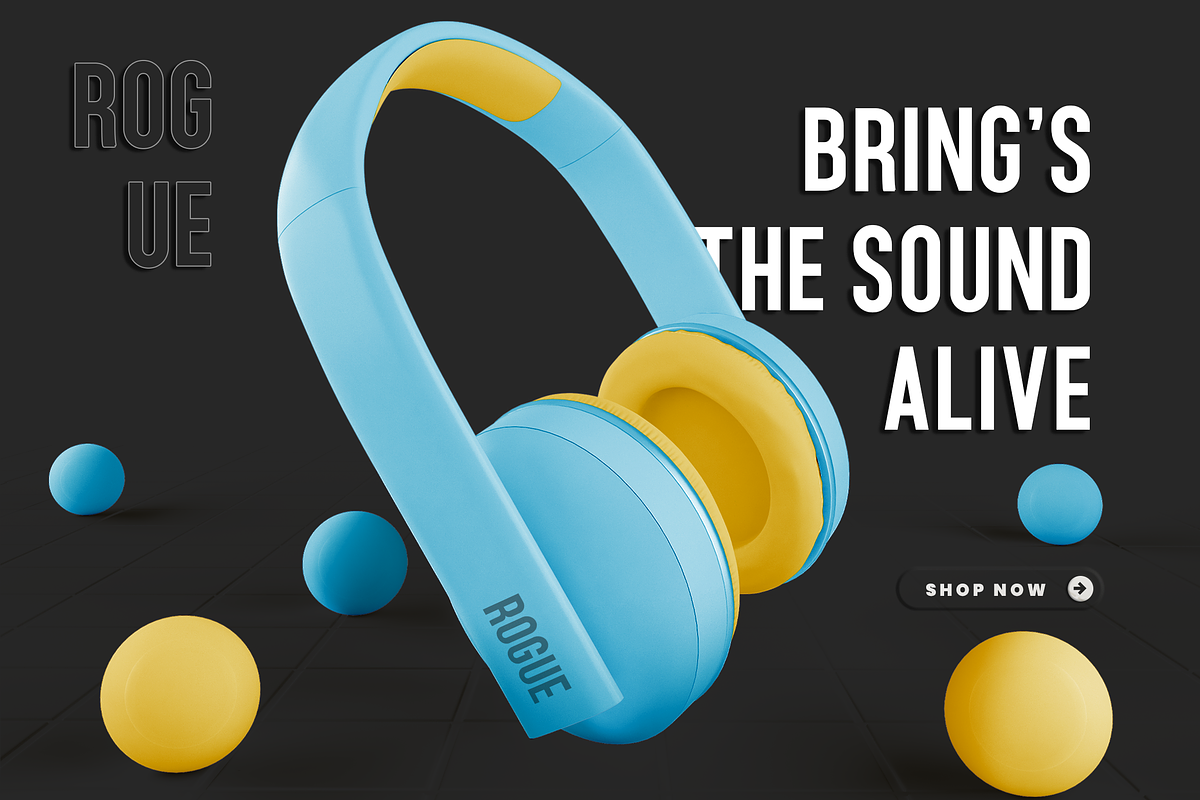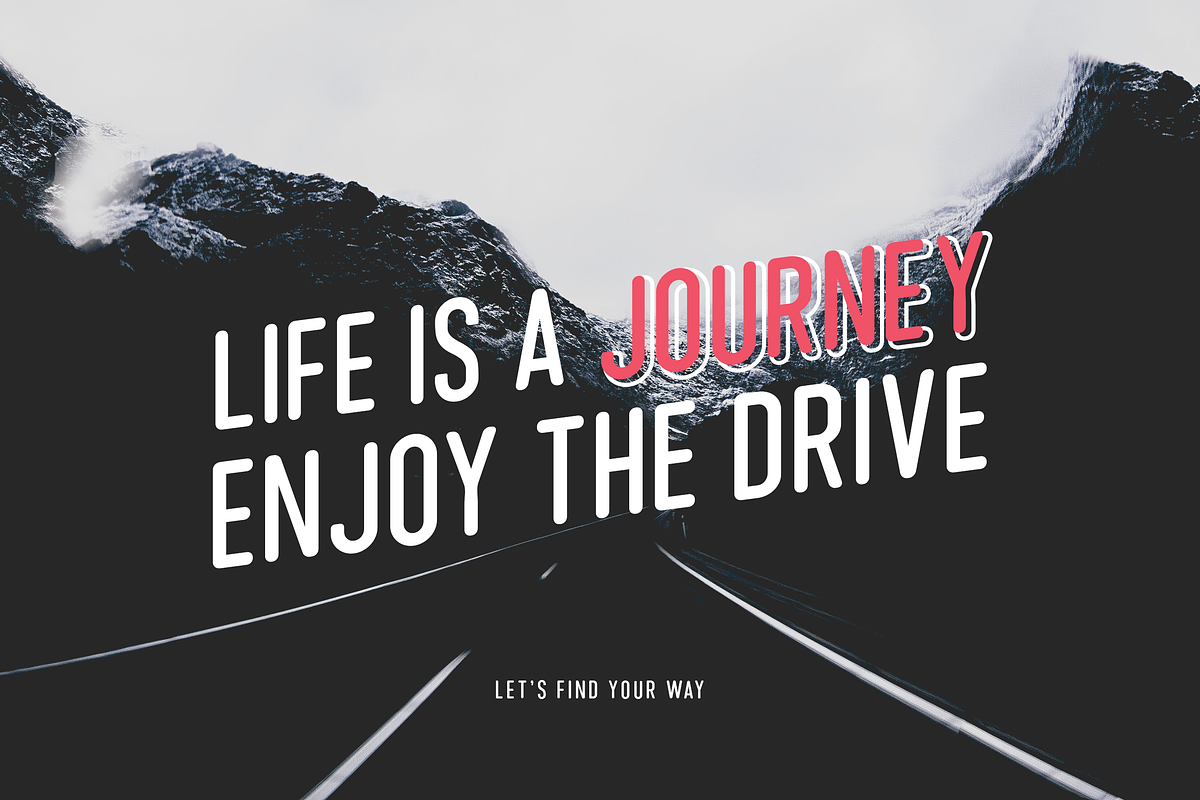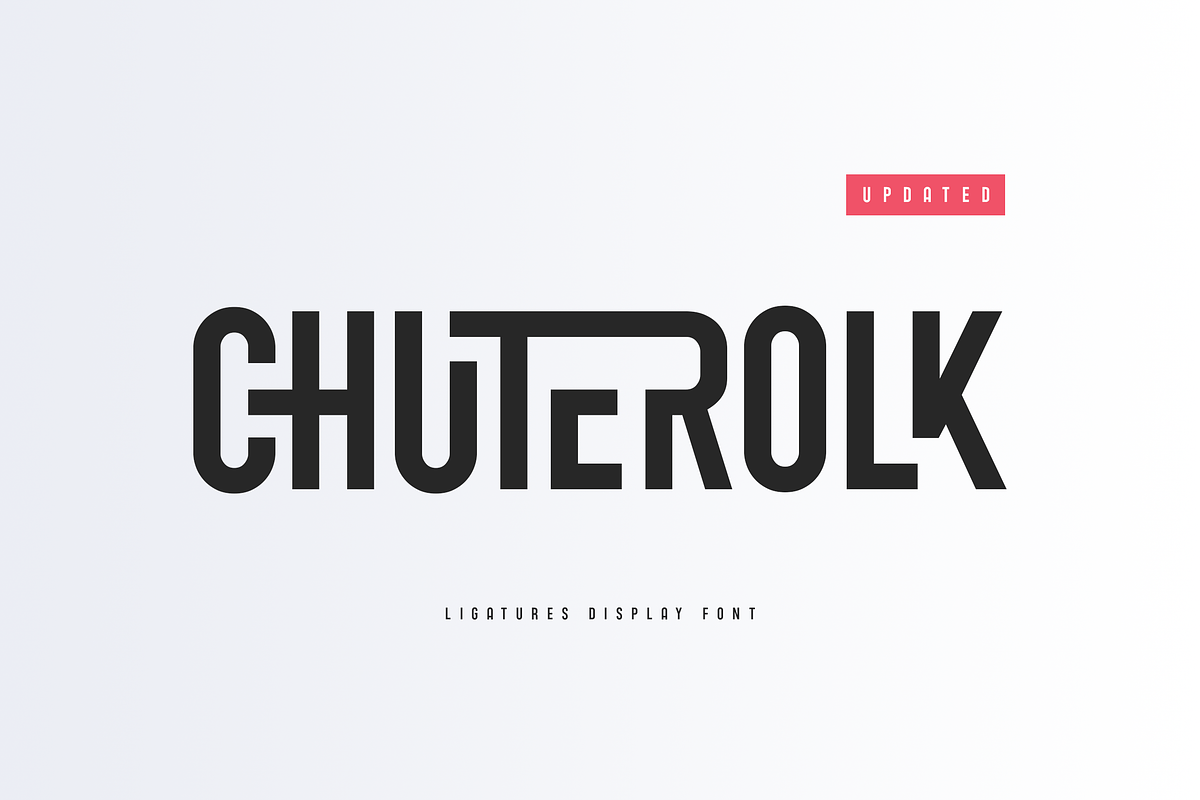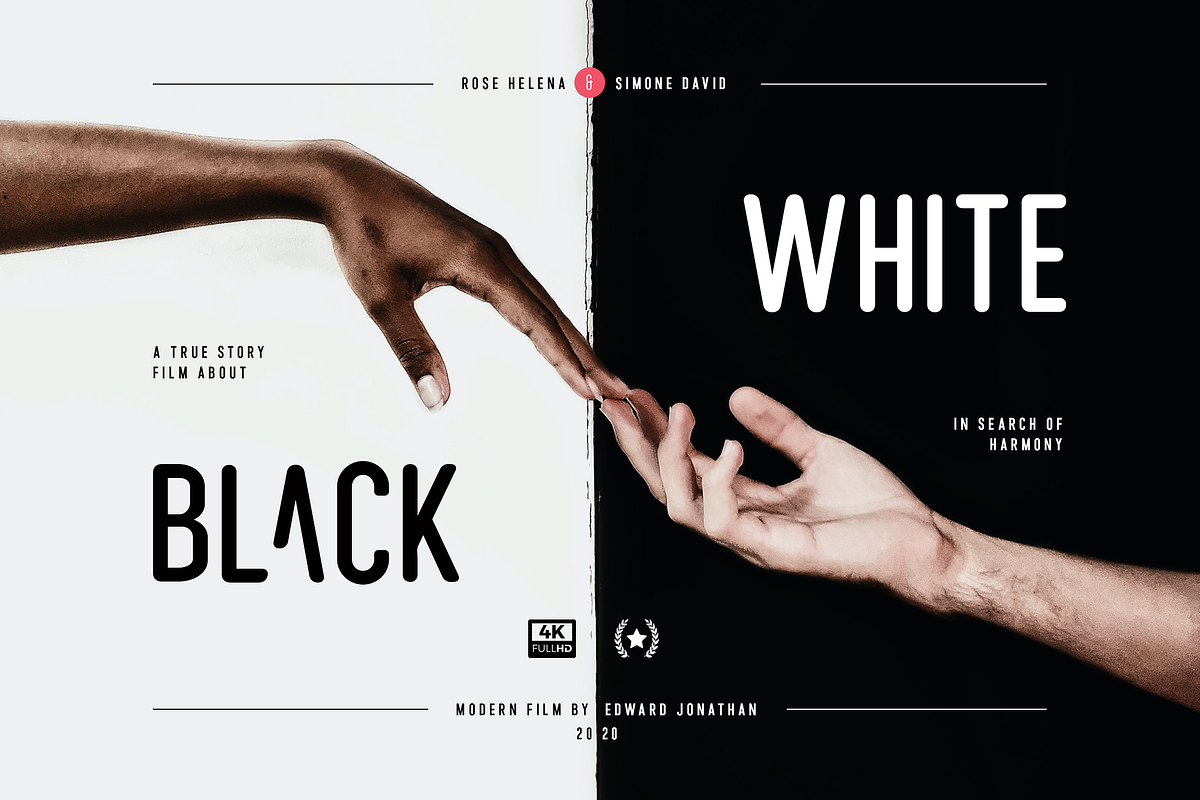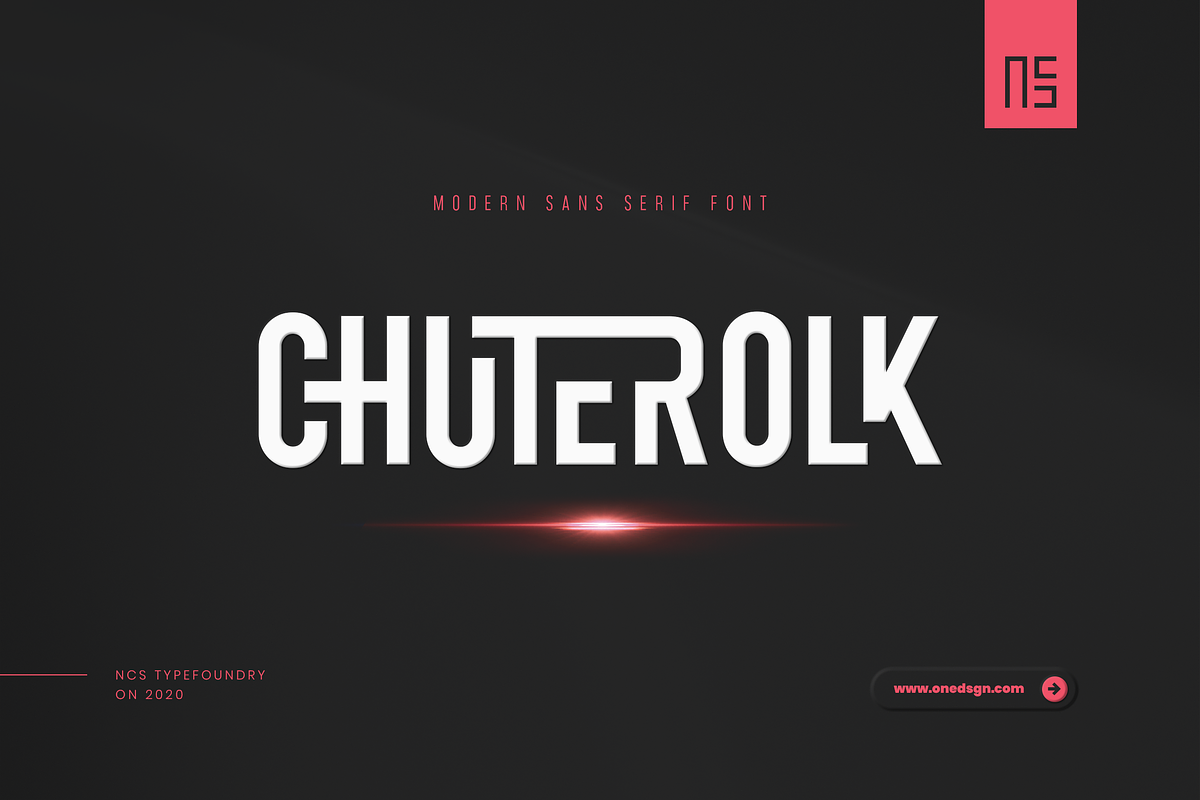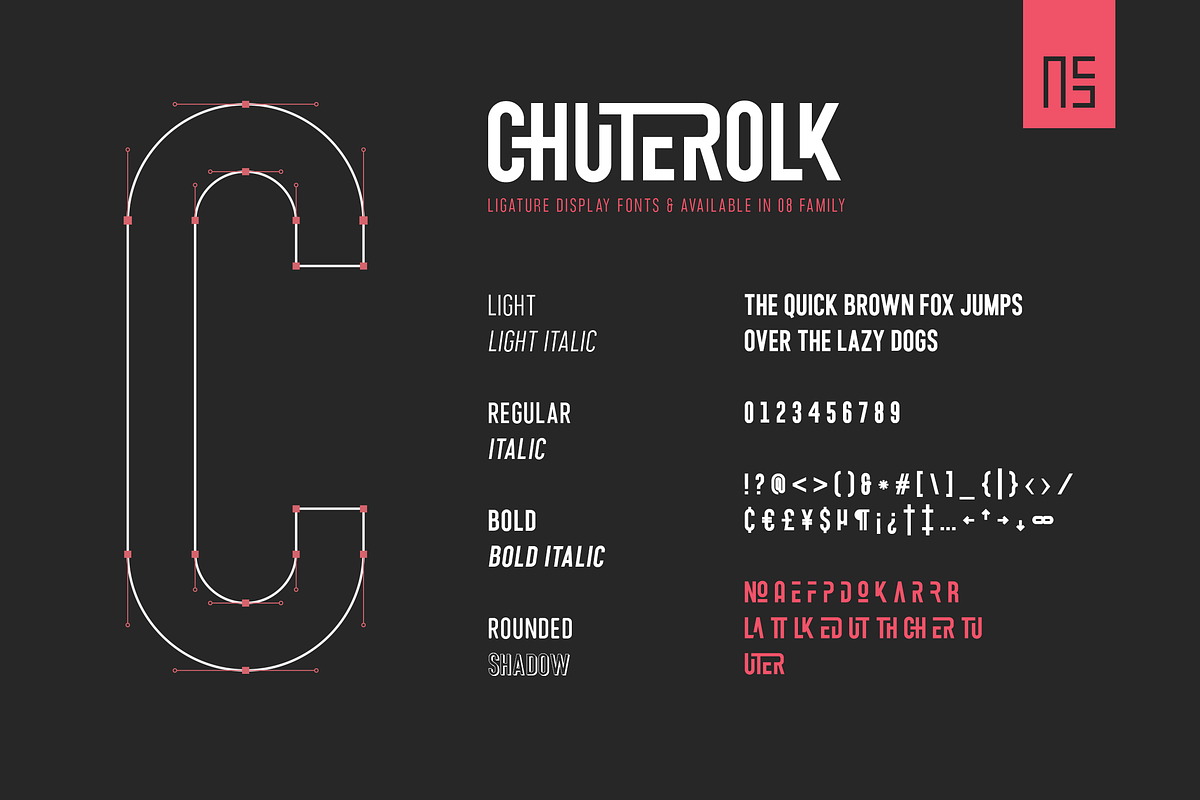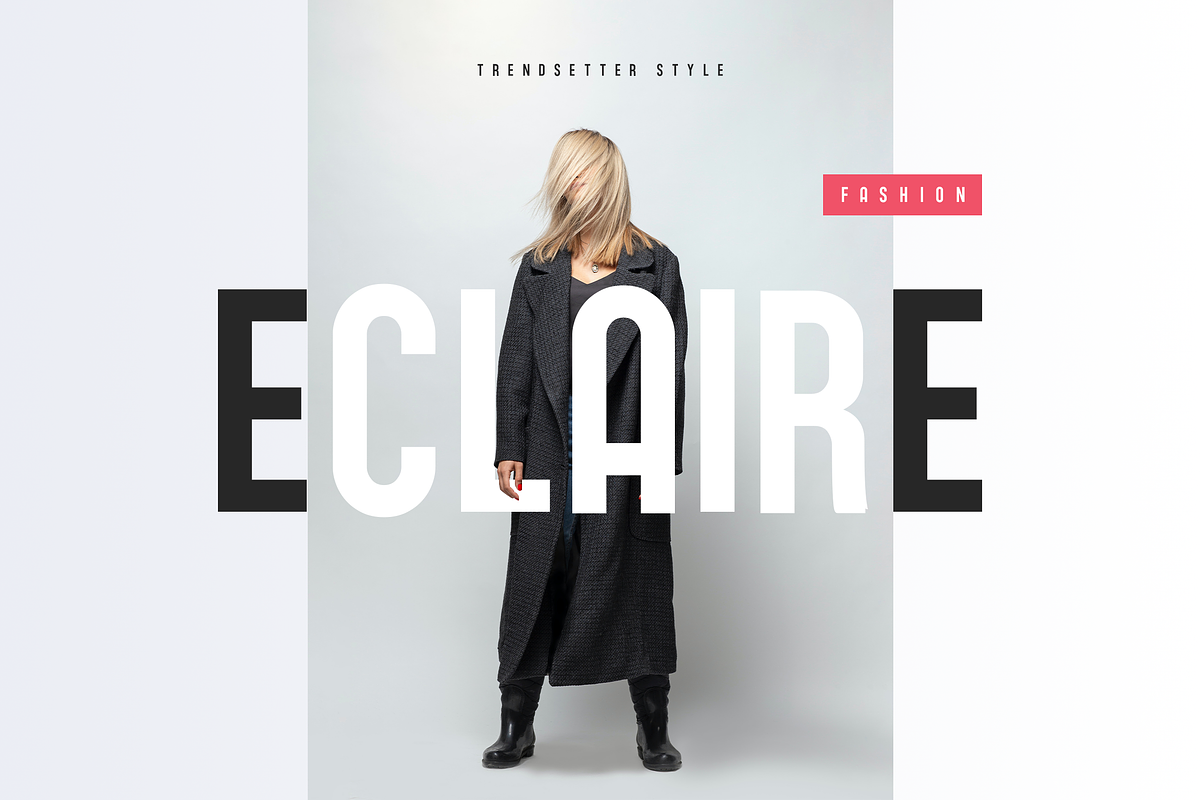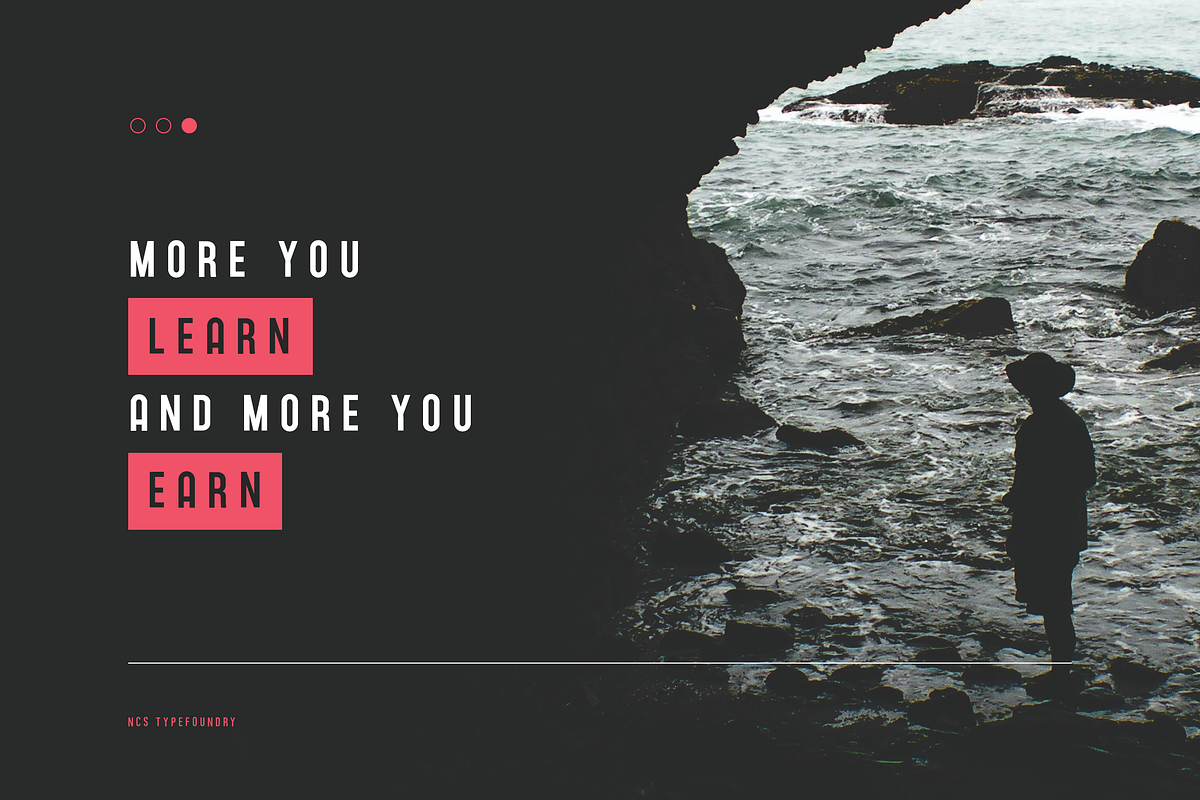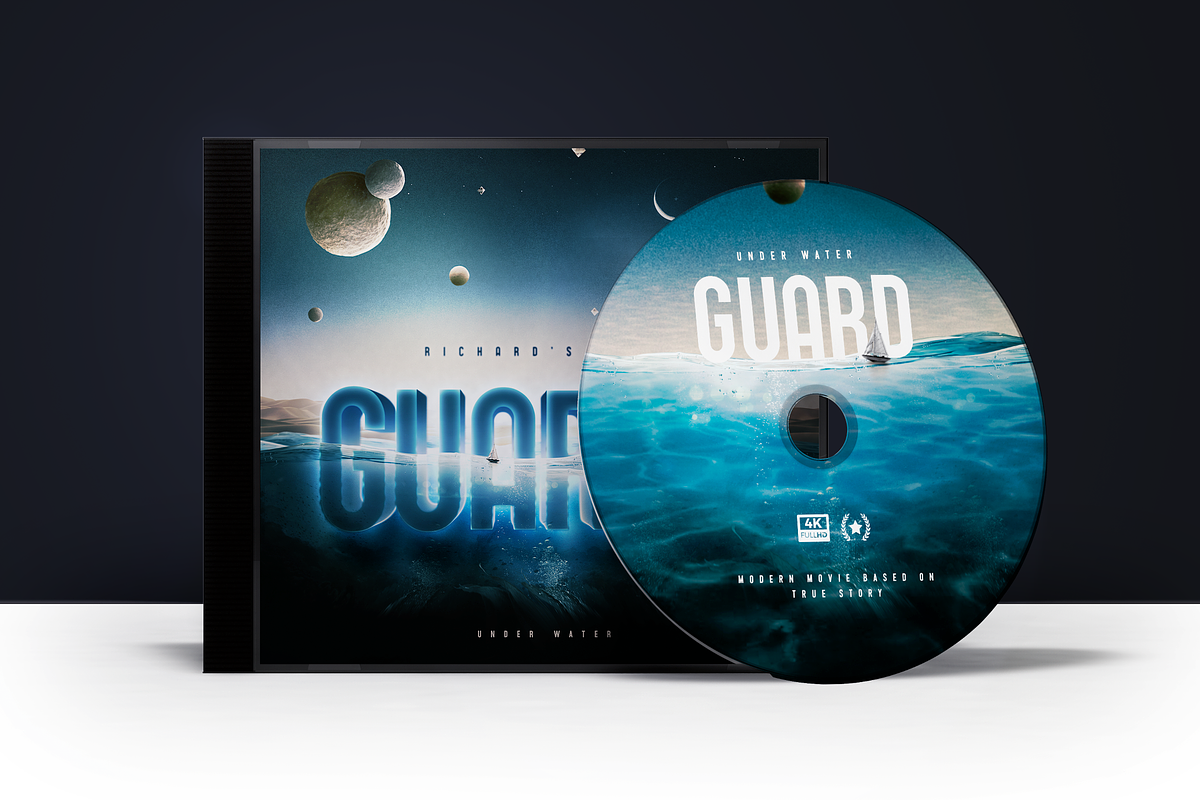
CHUTEROLK
Modern sans serif font that is out of this world. A strong balance between strong pointed corners and smooth curves, perfect for all purposes but especially for headlines. With 8 Variant to choose :
- CHUTEROLK Light
- CHUTEROLK Light Italic
- CHUTEROLK Regular
- CHUTEROLK Italic
- CHUTEROLK Rounded
- CHUTEROLK Shadow
- CHUTEROLK Bold
- CHUTEROLK Bold Italic
Includes alternative glyphs, ligatures and multilingual support.